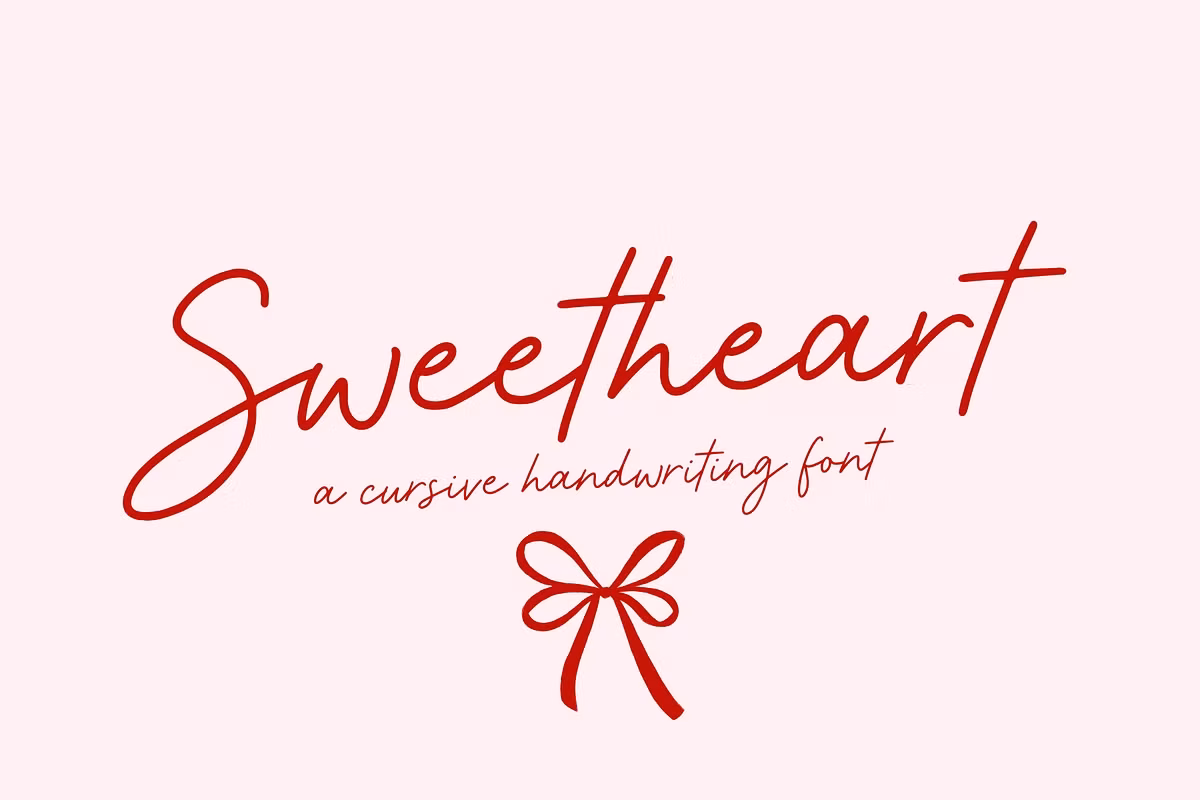
Please note, you must purchase this font for commercial use. However, you can easily download Sweetheart Font Free Download for personal use and testing purposes. Sweetheart Font is a playful and charming script typeface, designed to add a soft, loving touch to any design. Perfect for creating invitations, greeting cards, logos, and social media graphics, this font features smooth, flowing strokes that give your projects a friendly, romantic vibe. Whether you're designing for a wedding, a gift shop, or a brand with a personal touch, Sweetheart Font Free Download will bring warmth and elegance to your typography. Download Sweetheart Font Free Download today and explore its potential before opting for a commercial license.